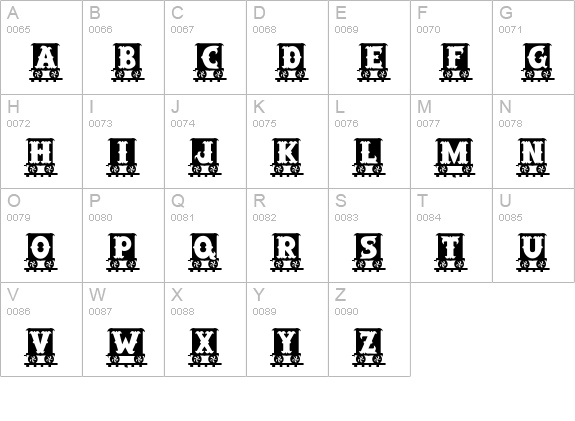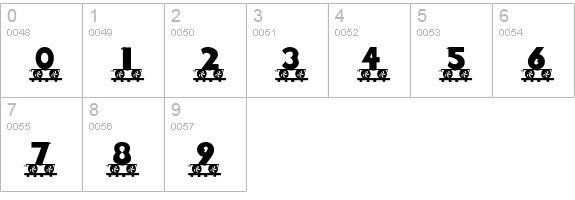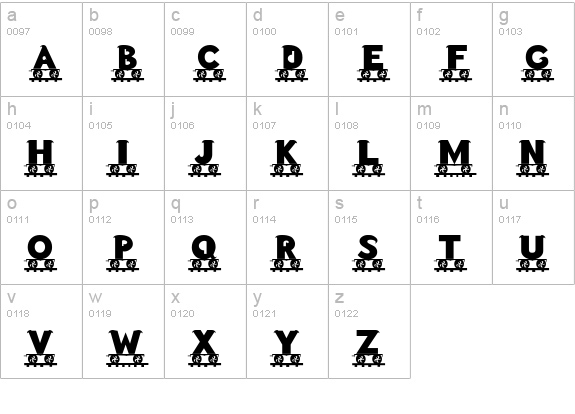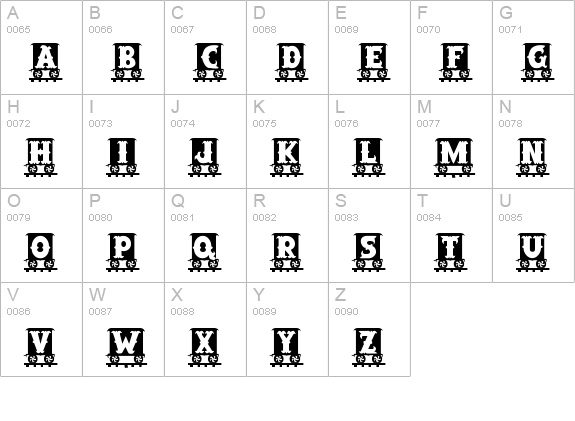
LetterTrain Bold Font Details
LetterTrain Bold is a strong, high-contrast variant in the LetterTrain typeface family \xE2\x80\x94 well suited to headlines, attention-grabbing titles, and strong calls-to-action.
Introducing LetterTrain Bold, a stunning and dynamic font that will make your designs pop! With its bold and confident letterforms, this font demands attention and adds a touch of modernity to any project. LetterTrain Bold is the perfect choice for headlines, logos, posters, and other display purposes. Its strong and impactful design will ensure that your message is delivered with power and clarity. Whether you're designing for print or digital, this font will captivate your audience and leave a lasting impression. But what makes LetterTrain Bold even more appealing is that it is freely available to download at FontsMarket.com. Yes, you heard that right - this incredible font can be yours for free! FontsMarket.com offers a wide range of high-quality fonts, and LetterTrain Bold is just one of the many gems you'll find on their website. So why wait? Enhance your designs and grab the attention of your audience with LetterTrain Bold. Download it today for free at FontsMarket.com and take your projects to new heights of creativity and professionalism. Don't miss out on this incredible opportunity to elevate your design game with this bold and captivating font.